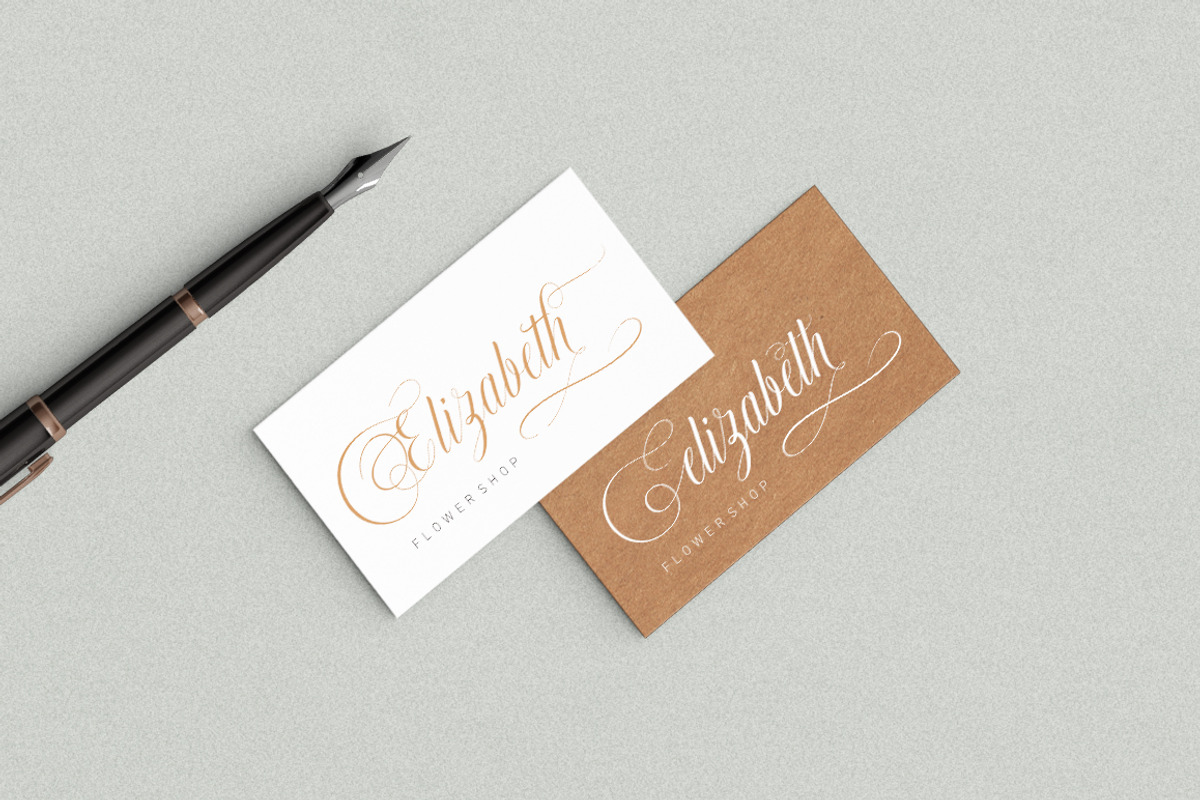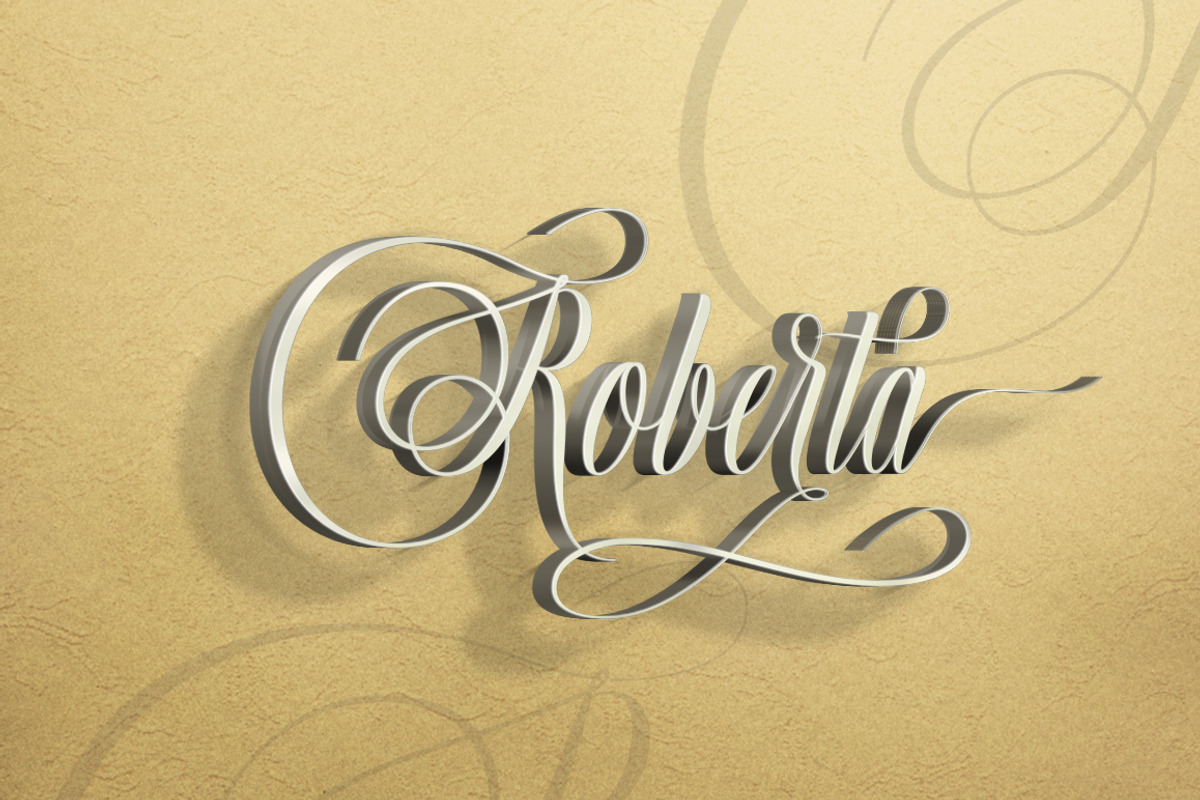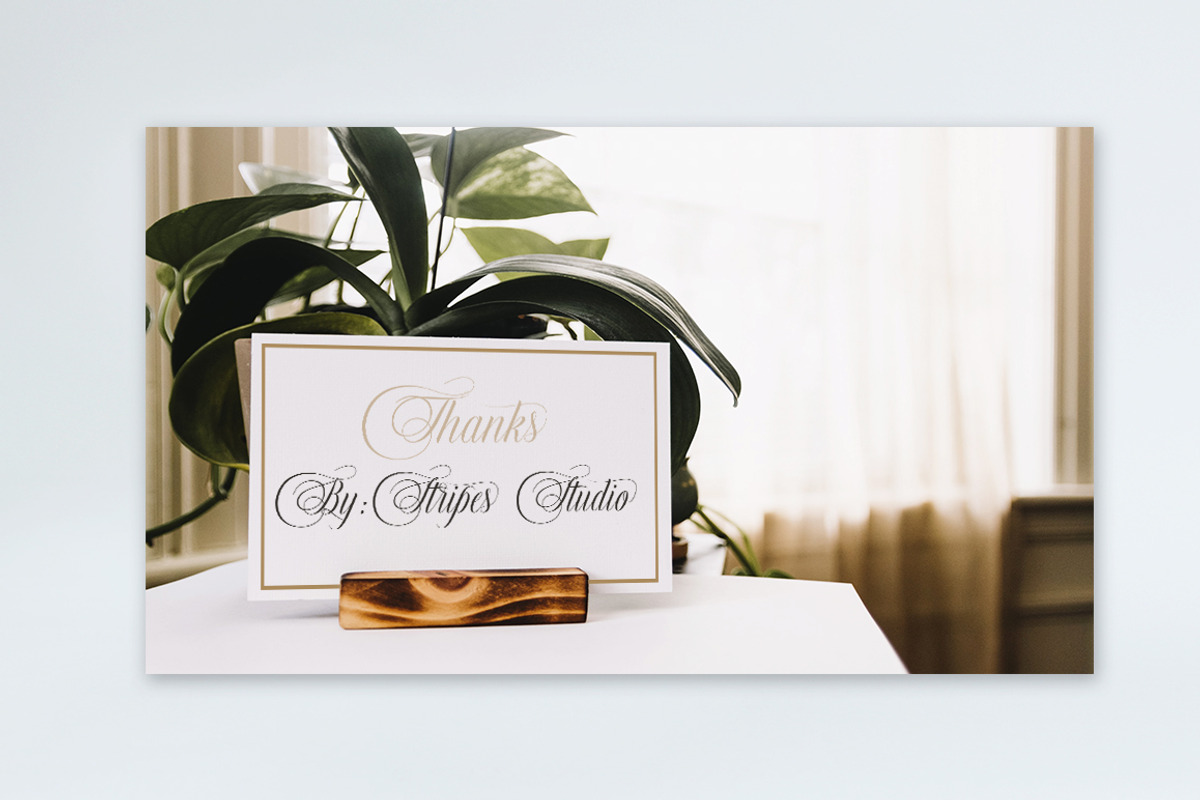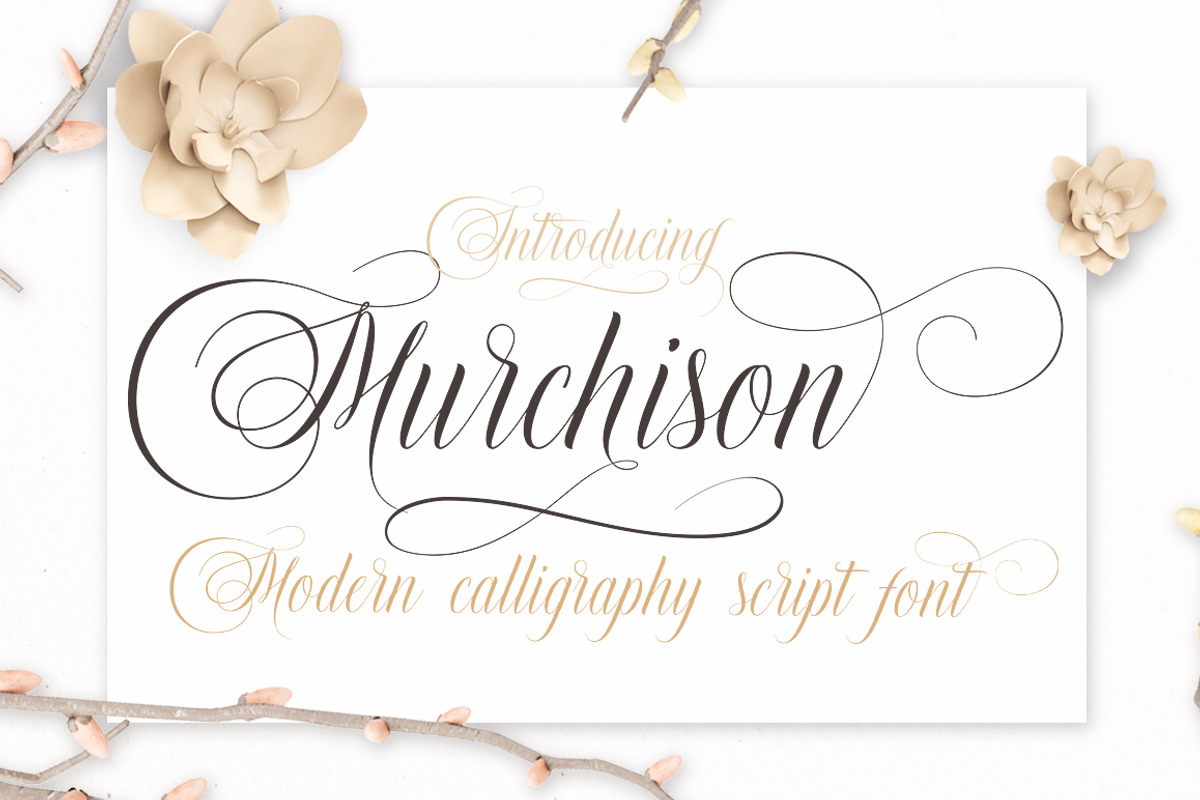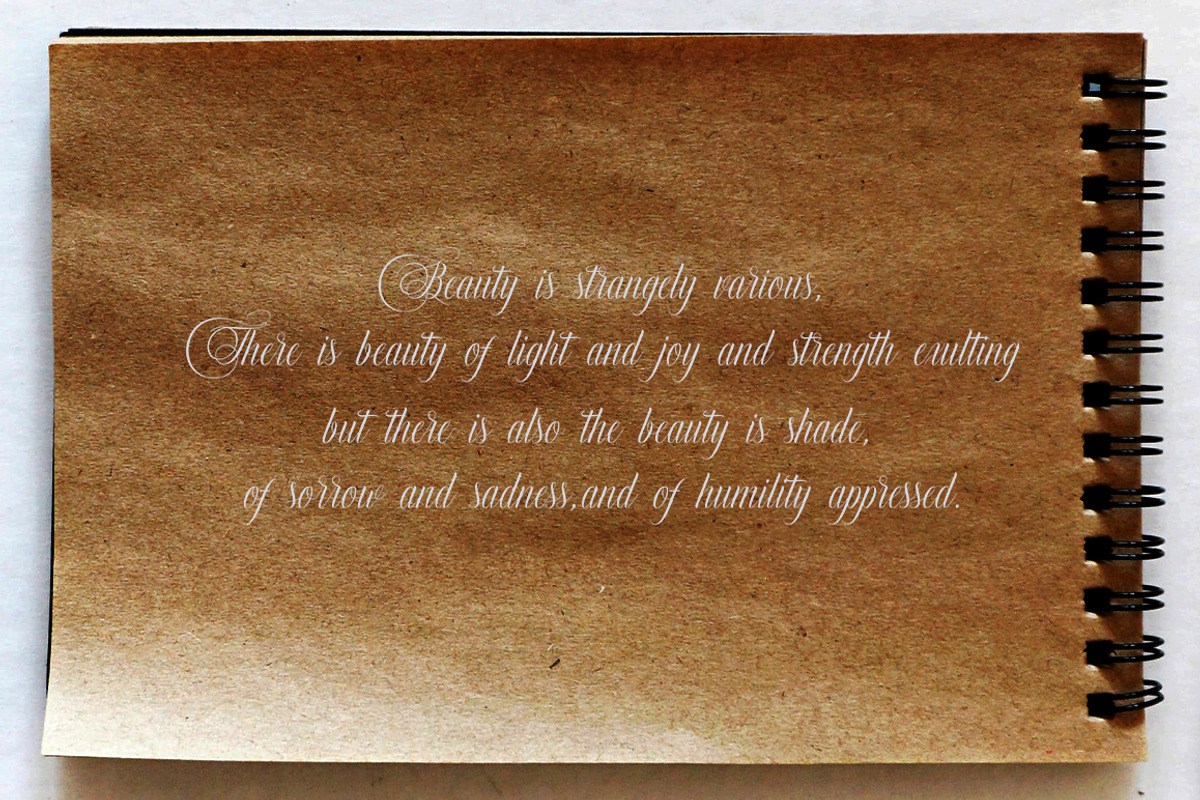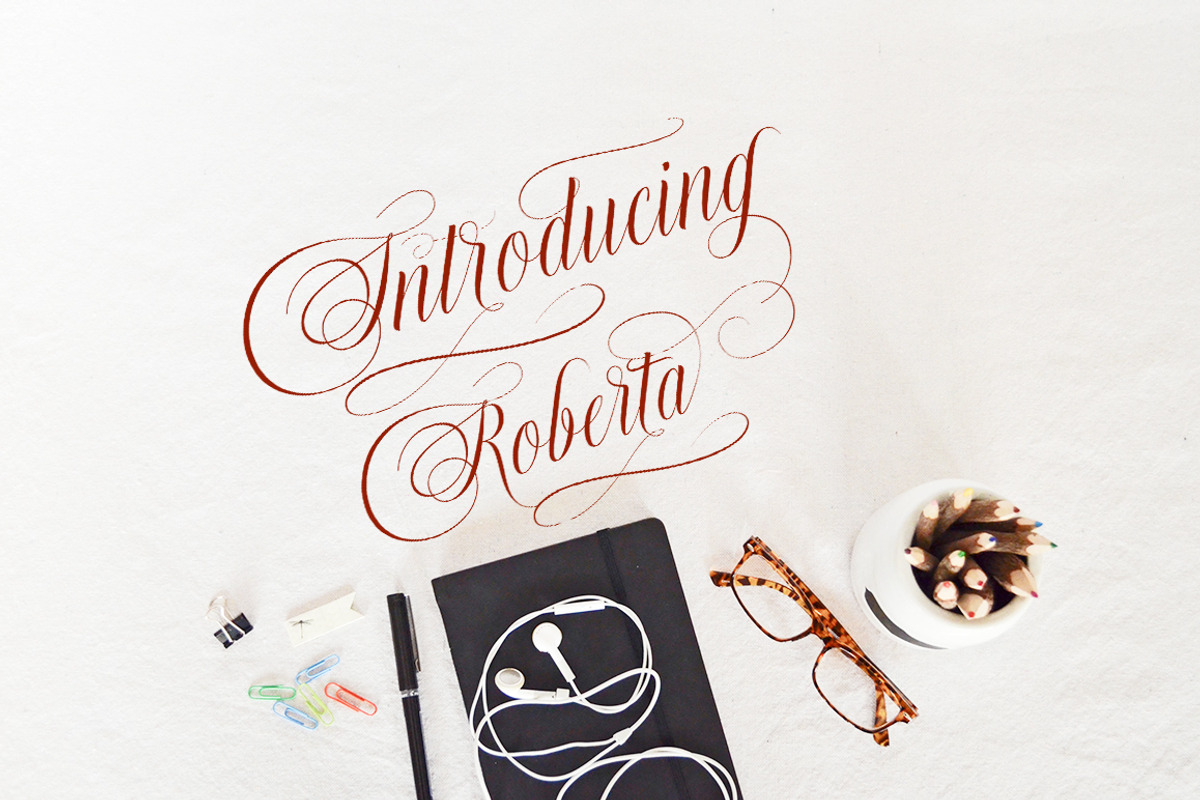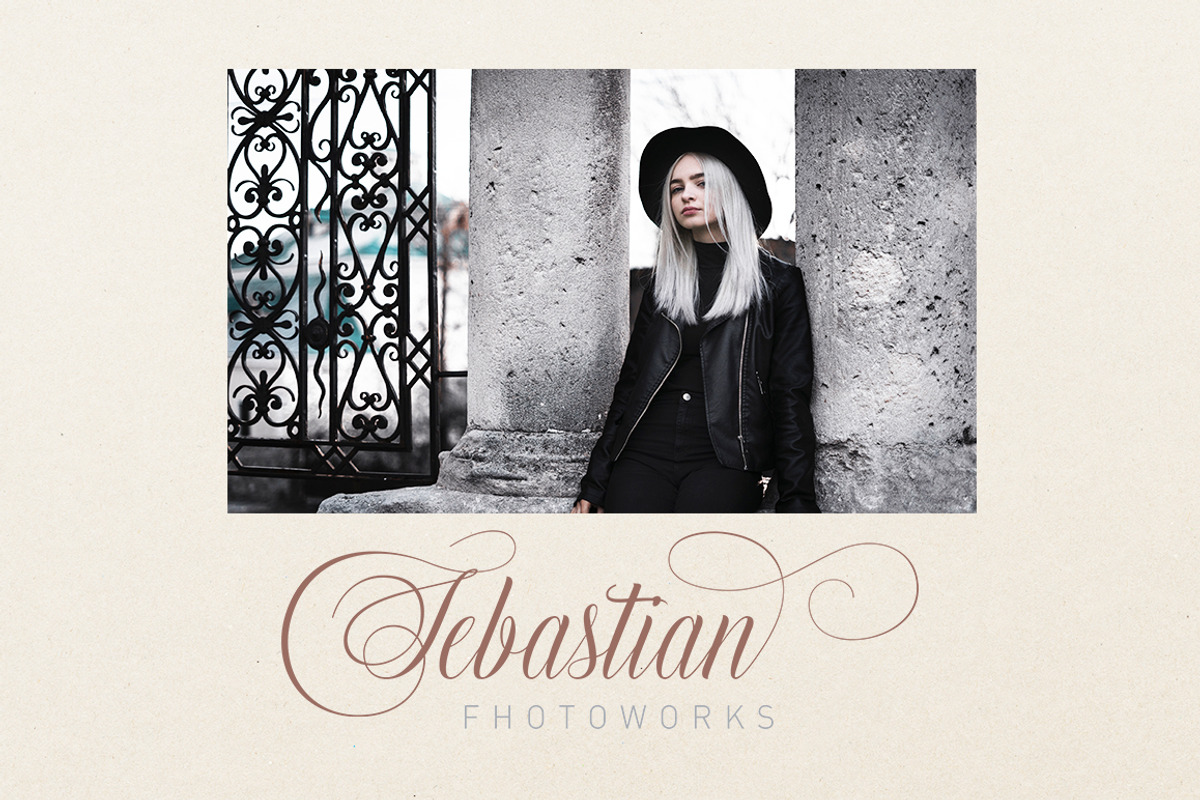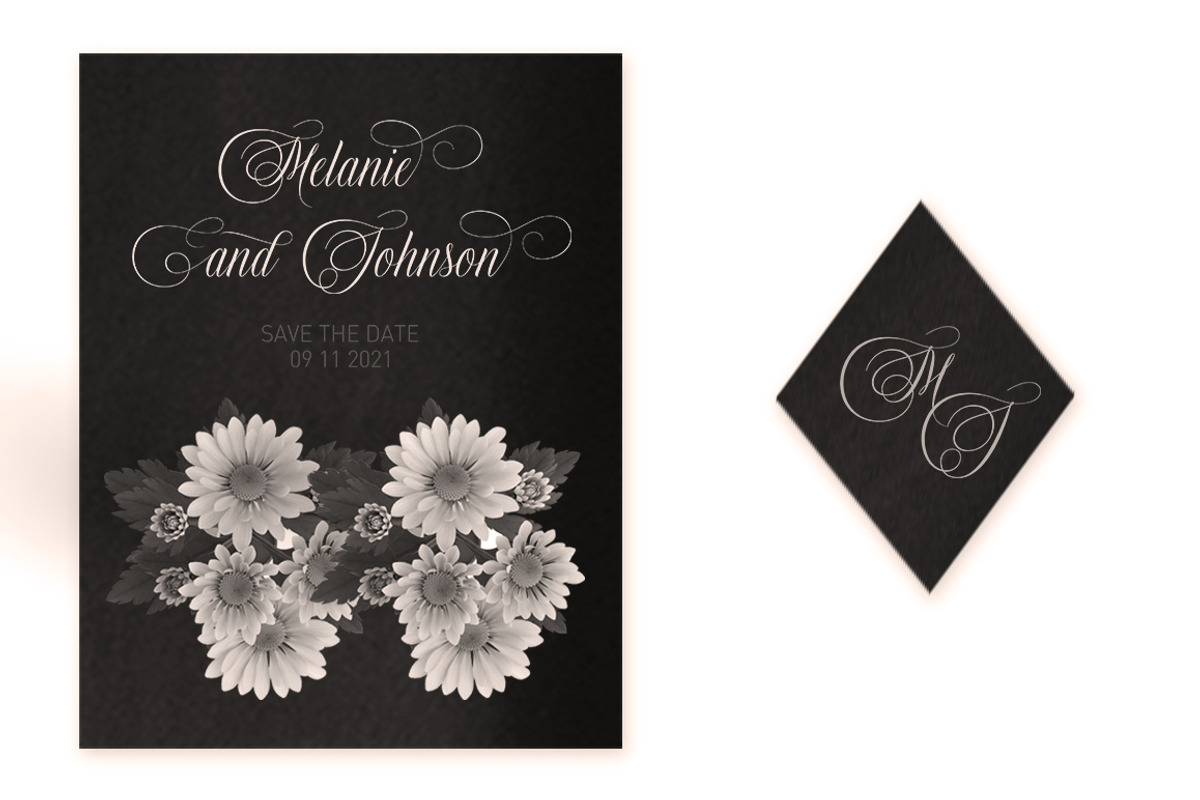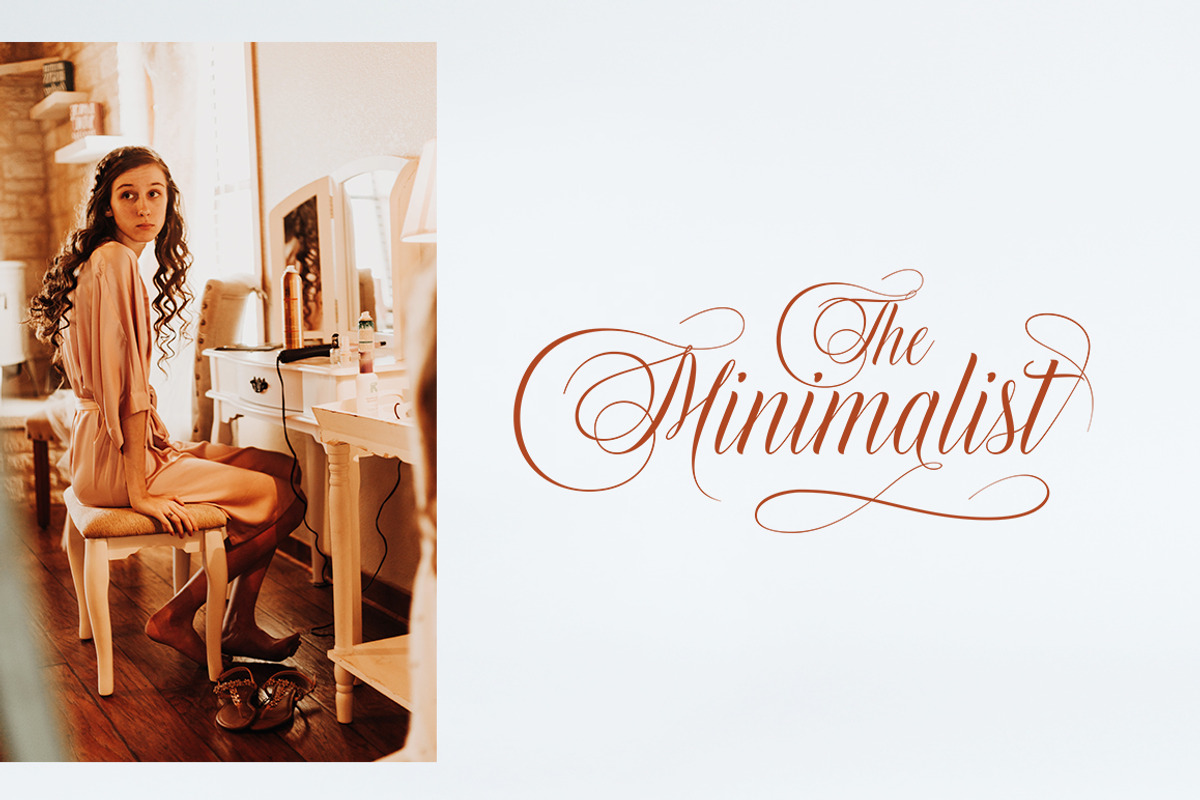
Murchison Script
Hi, Introducing the latest styles Murchison Script with the kind of modern hand scratches, I hope you are interested in this font, if you want to use for your work this font can be used easily and simply because there are a lot of features in it to contain a complete set of letters lower and uppercase letters, assorted punctuation, numbers, and multilingual support. font also contains several ligatures and alternate style Stylistic.